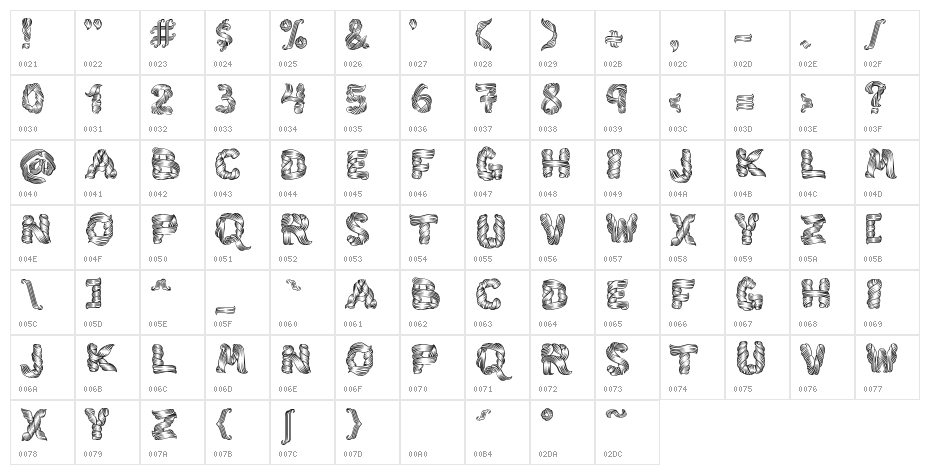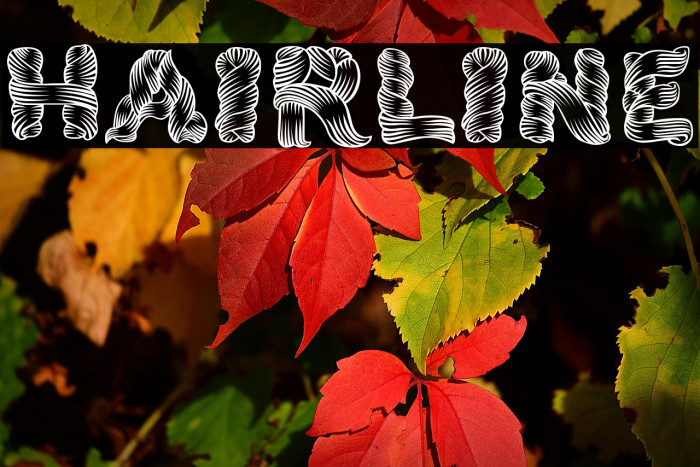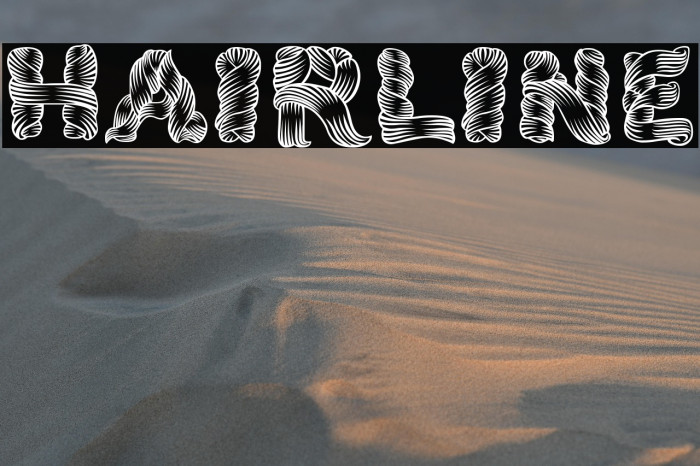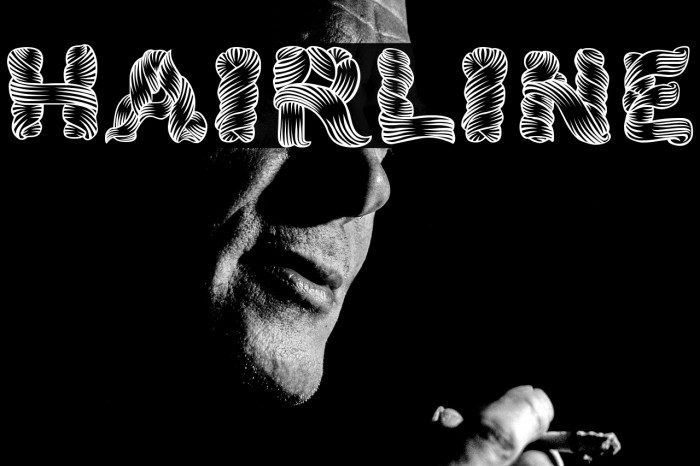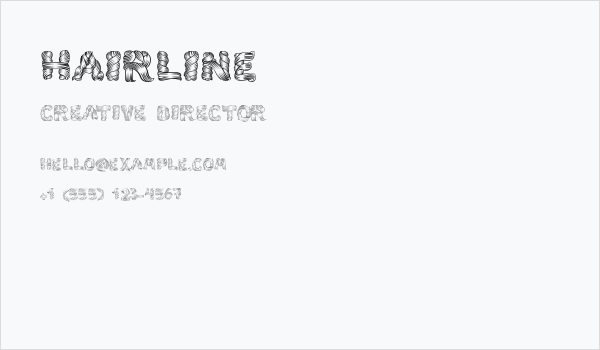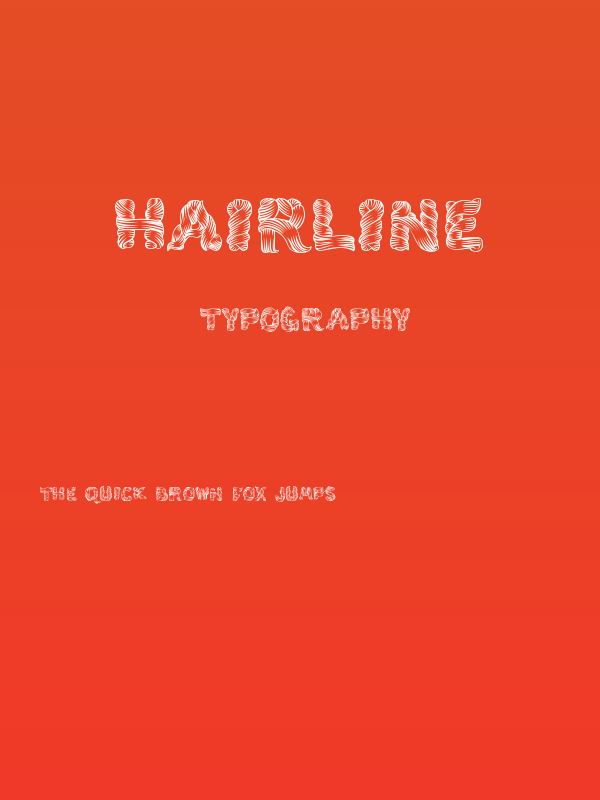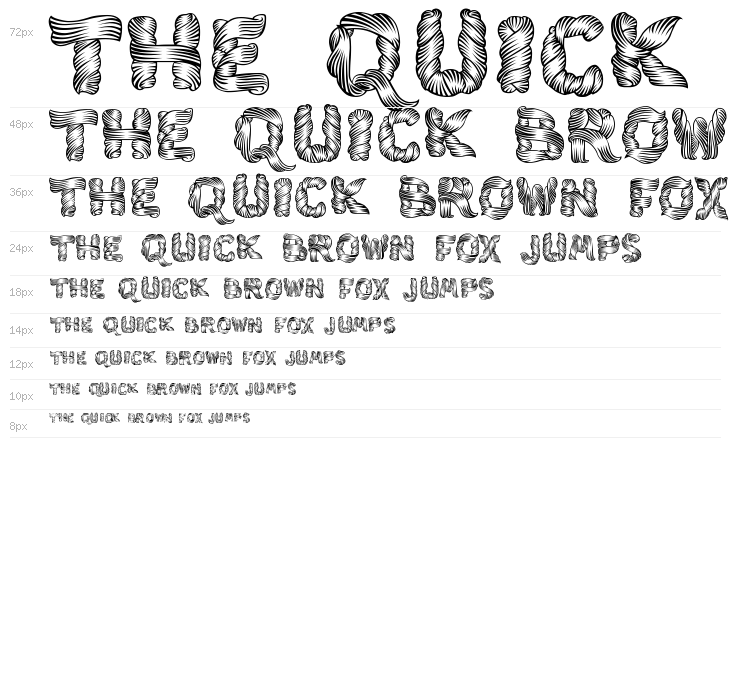
Hairline Font
Hairline Description
This font features a unique, decorative style that mimics the appearance of intertwined strands or ribbons, creating a textured and dynamic visual effect. Each character is intricately designed with a sense of movement and flow, making it stand out as a bold artistic statement. The letters and numbers are crafted with a consistent pattern of lines that give them a three-dimensional look, reminiscent of woven fabric or twisted rope. This intricate design adds depth and complexity, making it ideal for projects that require a distinctive and eye-catching typeface.
| Proposed Projects | Ideal for branding, posters, album covers, and artistic projects that require a bold and unique typeface. |